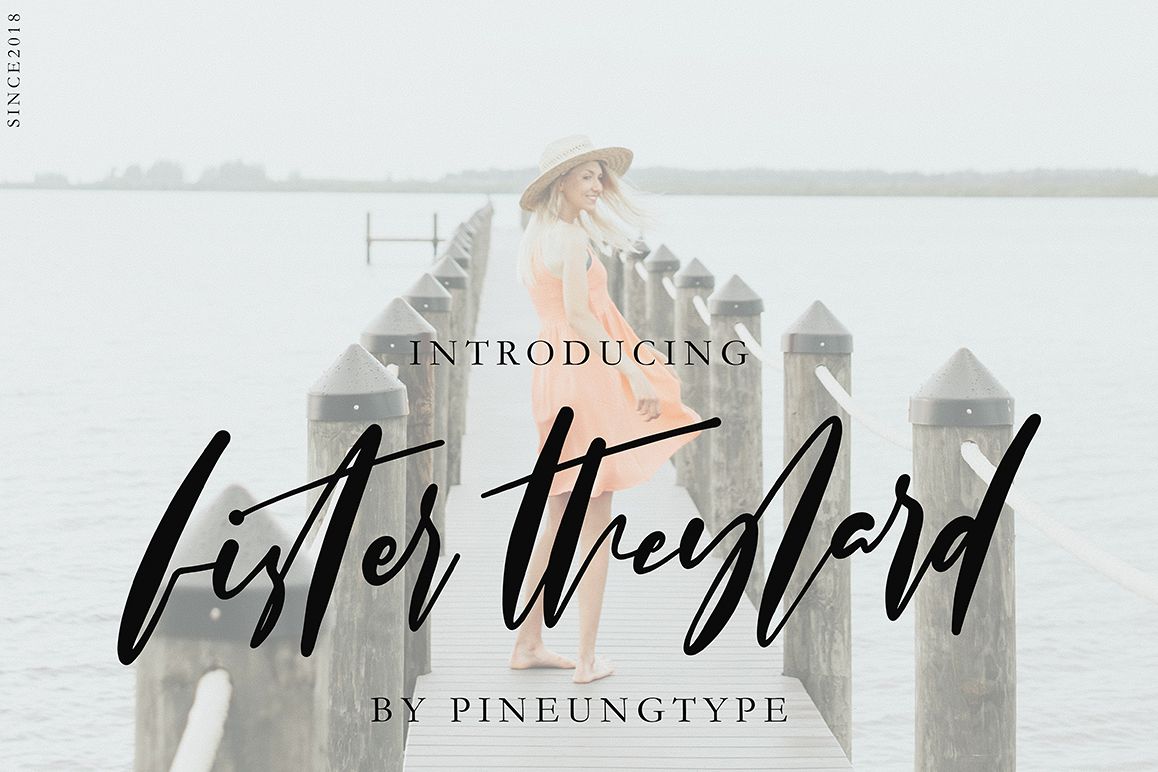
Fister Theylard
Fister theylard
Fister Theylard script font with modern style, this font will perfect for many different project ex: quotes, logo, blog header, poster, banding, fashion, apparel, letter, invitation, stationery, etc...